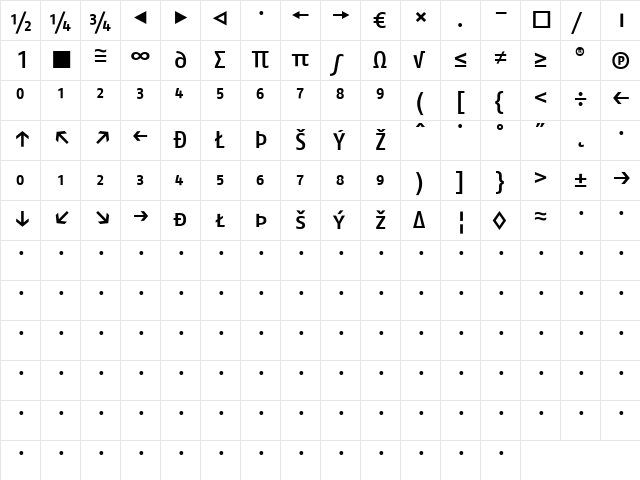
FagoNo Medium Font Preview
FagoNo Medium
FagoNo Medium Font Details
| Foundry | Ole Schaefer, . Published by FontShop International for FontFont Release Fago is a trademark of FSI Fonts and Software GmbH |
Design Context for FagoNo Typeface
FagoNo takes a measured approach to typography — its balanced proportions and neutral character make it a reliable workhorse for both digital and print work.